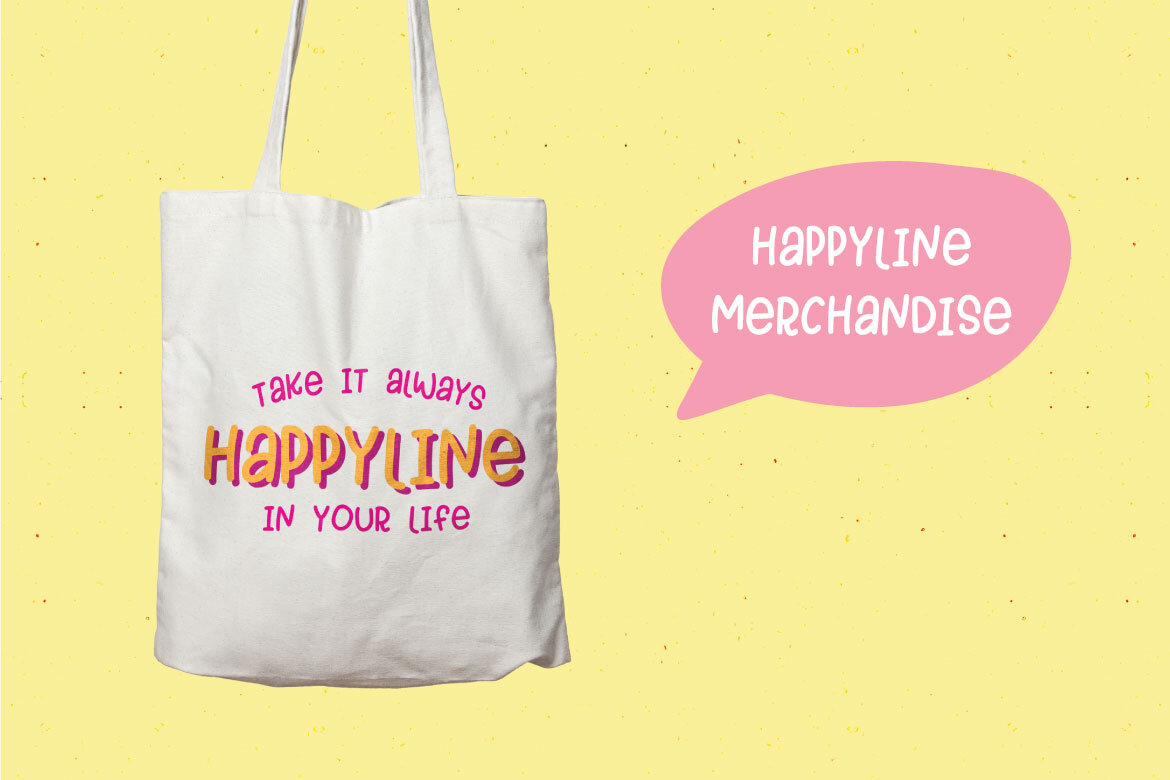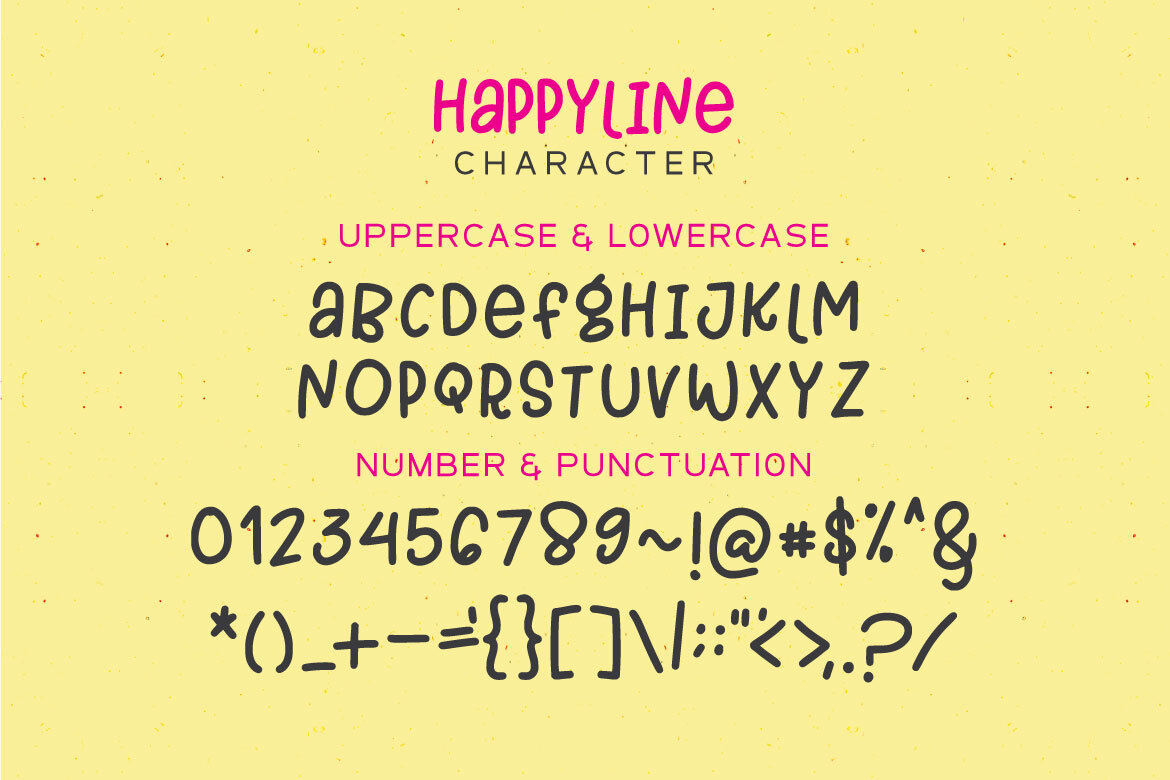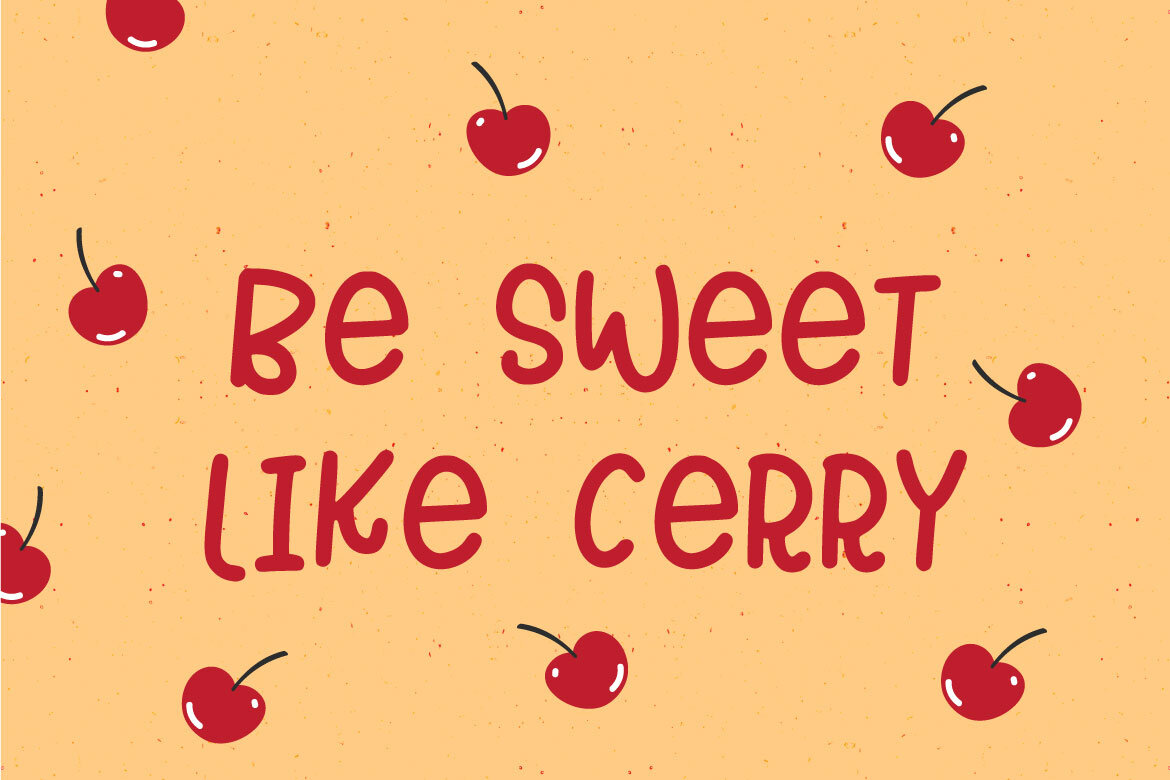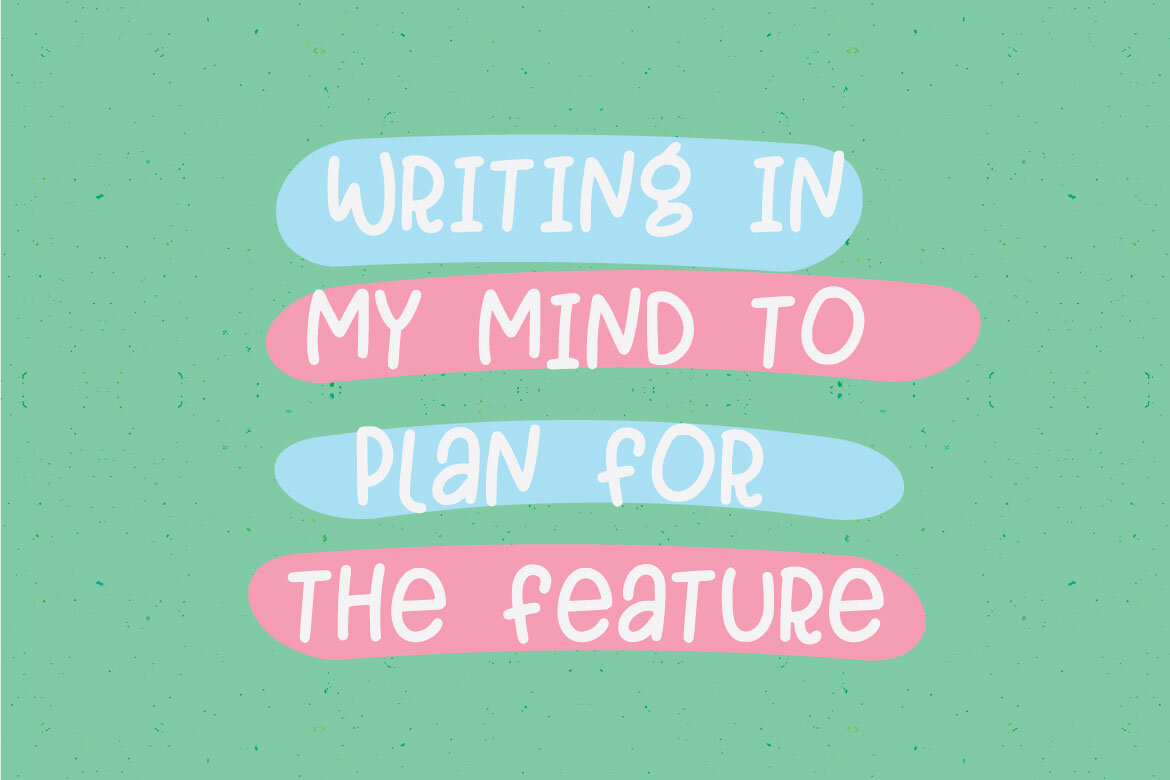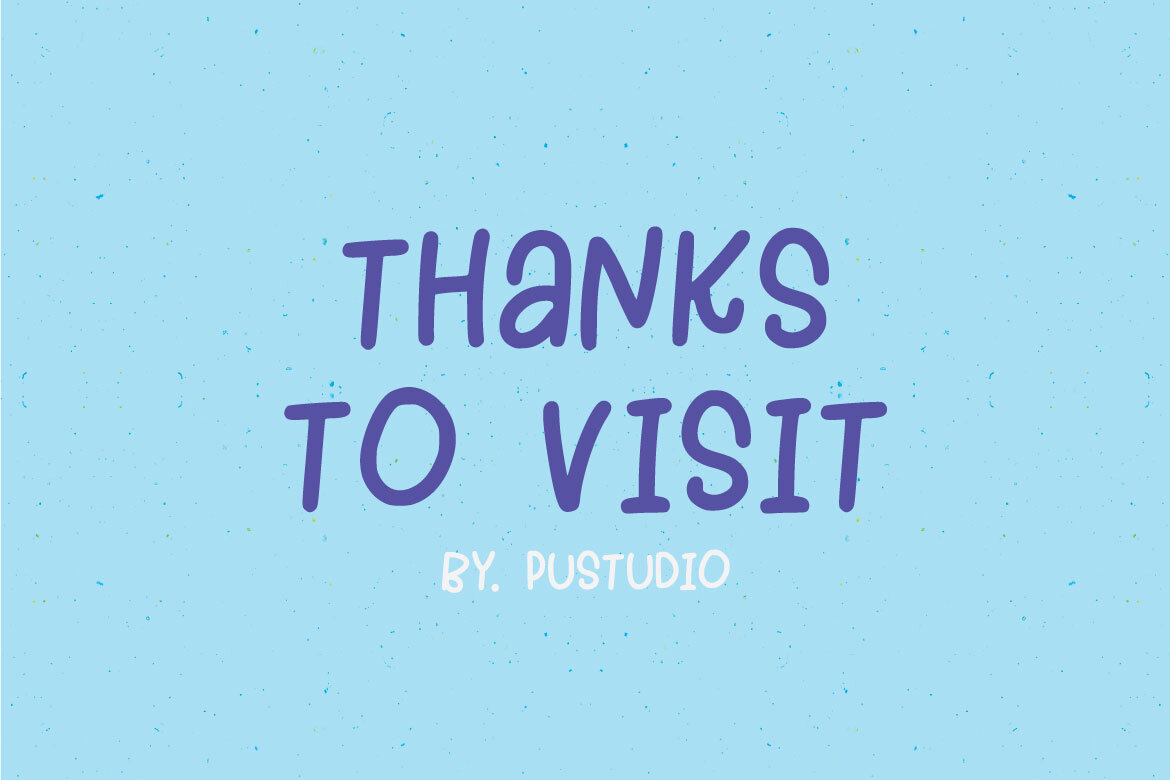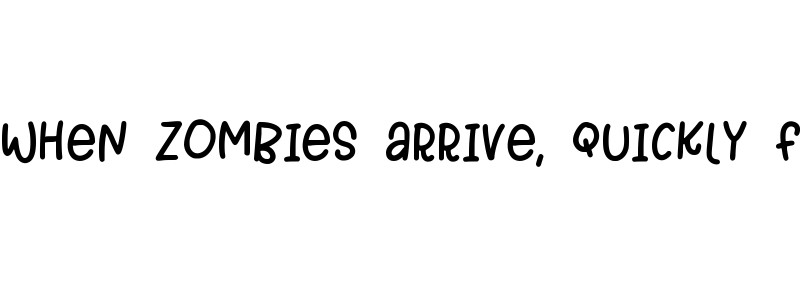
HAPPYLINE Free Font
HAPPYLINE
Happyline is a handwritten font that can be used for all chalkboard quotes or teaching material! Its authentic look and feel will add a personal and realistic feel to your designs.
• - you can use it in logos, promotional media or other products